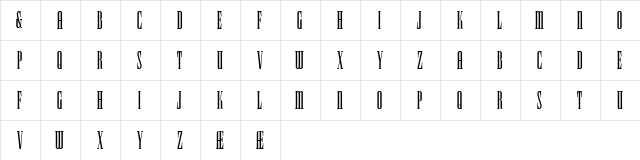
HFF Iconic Ionic Regular
| Foundry | Have Fun with Fonts |
| Designer | Have Fun with Fonts |
| Year | 2010 |
Design Context for HFF Iconic Ionic Typeface
HFF Iconic Ionic offers clean, dependable letterforms without strong stylistic allegiance, making it a practical choice for designers who need flexibility.